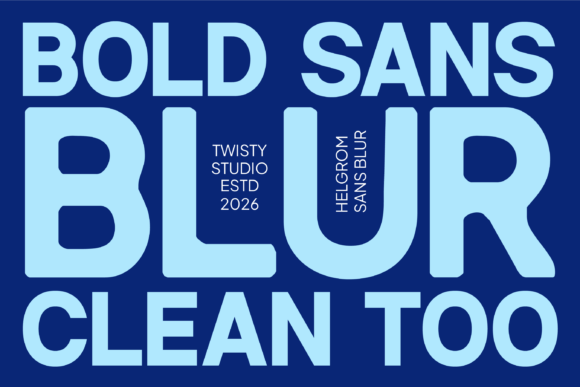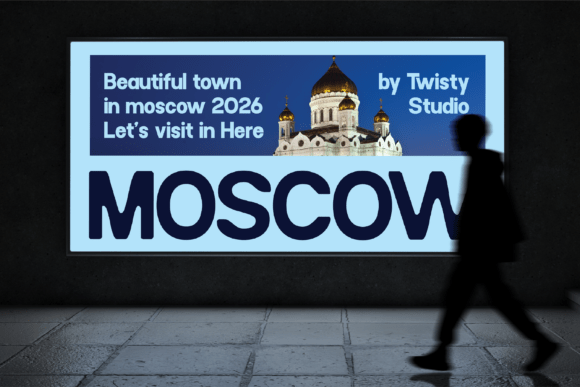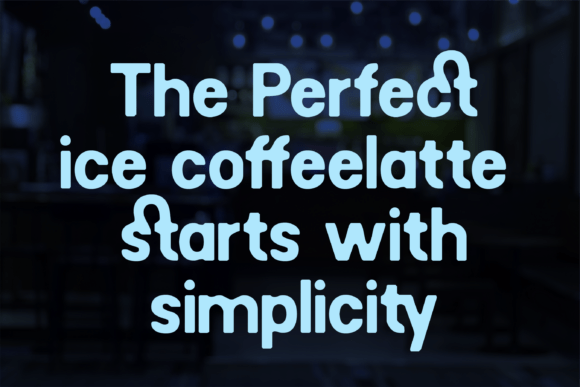
Introduction to Helgrom Font
Have you ever stared at a blank canvas, waiting for the perfect font to bring your creative project to life? As designers, we’ve all been there – searching for that elusive combination of style and readability that elevates our work to the next level. Enter Helgrom Font, a revolutionary duo font that’s set to shake up the design world.
Helgrom Font is more than just a font – it’s a game-changing design resource that offers a unique blend of clean and blurred sans serif styles. This high-quality font is perfect for designers who crave a bit of experimentation and want to push the boundaries of traditional typography.
With its transparent background and versatile design, Helgrom Font is an absolute must-have for any creative project. Whether you’re working on a branding project, a graphic novel, or simply want to add some flair to your personal blog, this font is sure to deliver. And the best part? You can download it for free, giving you the freedom to explore new design possibilities without breaking the bank.
Key Features of Helgrom Font
- High-quality design resource ideal for creative projects, offering a unique aesthetic.
- Features a transparent background, allowing for seamless integration with various design elements.
- Designed with precision and care, resulting in a crisp and clear display at resolutions up to 300 DPI.
- Available in a range of sizes, from 12-point to 72-point, making it suitable for various design applications.
- Comes with a comprehensive character set, including uppercase and lowercase letters, numerals, and punctuation marks.
- Perfect for designers and artists seeking a high-quality design resource for their creative projects.
Honest Review: Helgrom Font
I recently had the chance to work with the Helgrom Font, and I must say it’s been a game-changer for my design projects. As a design resource, it’s truly exceptional.
- High-quality design: The Helgrom Font is sleek and modern, making it perfect for any creative project.
- Transparent background: This feature allows for seamless integration into any design, giving me more creative freedom.
- Not suitable for all design styles: While the Helgrom Font is versatile, it may not be the best choice for more traditional or vintage-style designs.
- Limited customization options: As a free font, I expected a bit more flexibility in terms of customization.
Overall, I’m impressed with the Helgrom Font’s performance in my creative projects. It’s a reliable design resource that I’ll continue to use. If you’re looking for a high-quality font for your next project, I’d definitely recommend giving it a try.
Tips for Getting the Most Out of Helgrom Font
To get the most out of Helgrom Font, use it in conjunction with other design elements, such as images and graphics. Experiment with different font sizes and styles to create a unique and eye-catching design. Additionally, use the font’s transparent background to create a seamless and professional design.
Helgrom Font is ideal for various creative projects, including social media graphics, presentations, business cards, logos, posters, and reports. Its high quality and versatility make it a great addition to any design, and its transparent background makes it perfect for creating a seamless and professional design.
Yes, the Helgrom Font supports transparent backgrounds, making it a great choice for designers who need to create graphics with complex backgrounds. The font’s transparent background feature allows for seamless integration with other design elements.